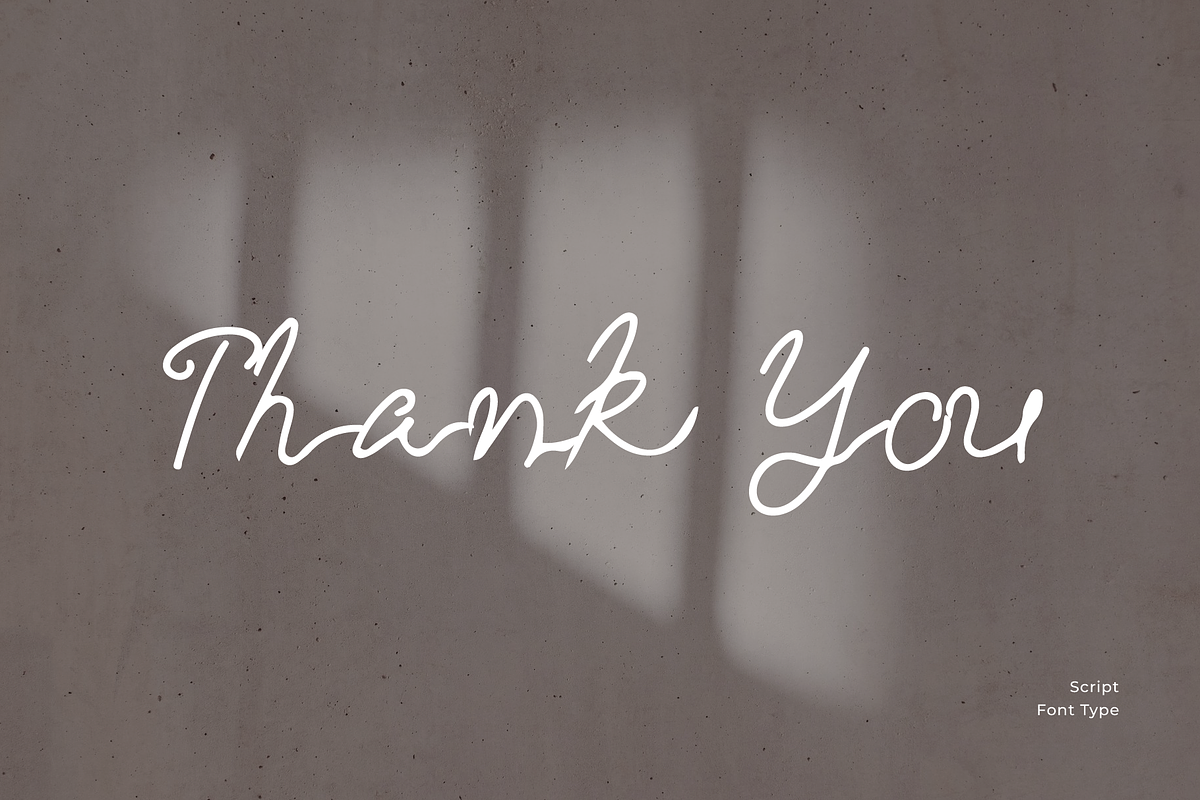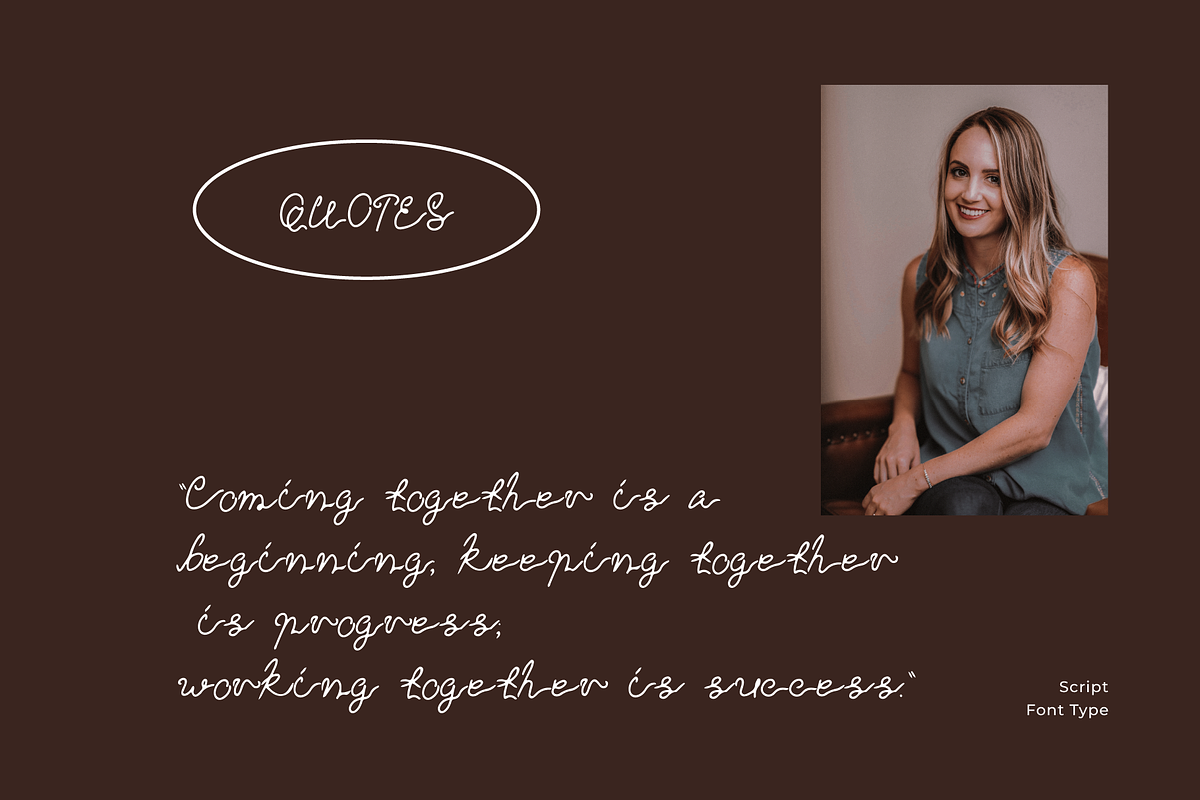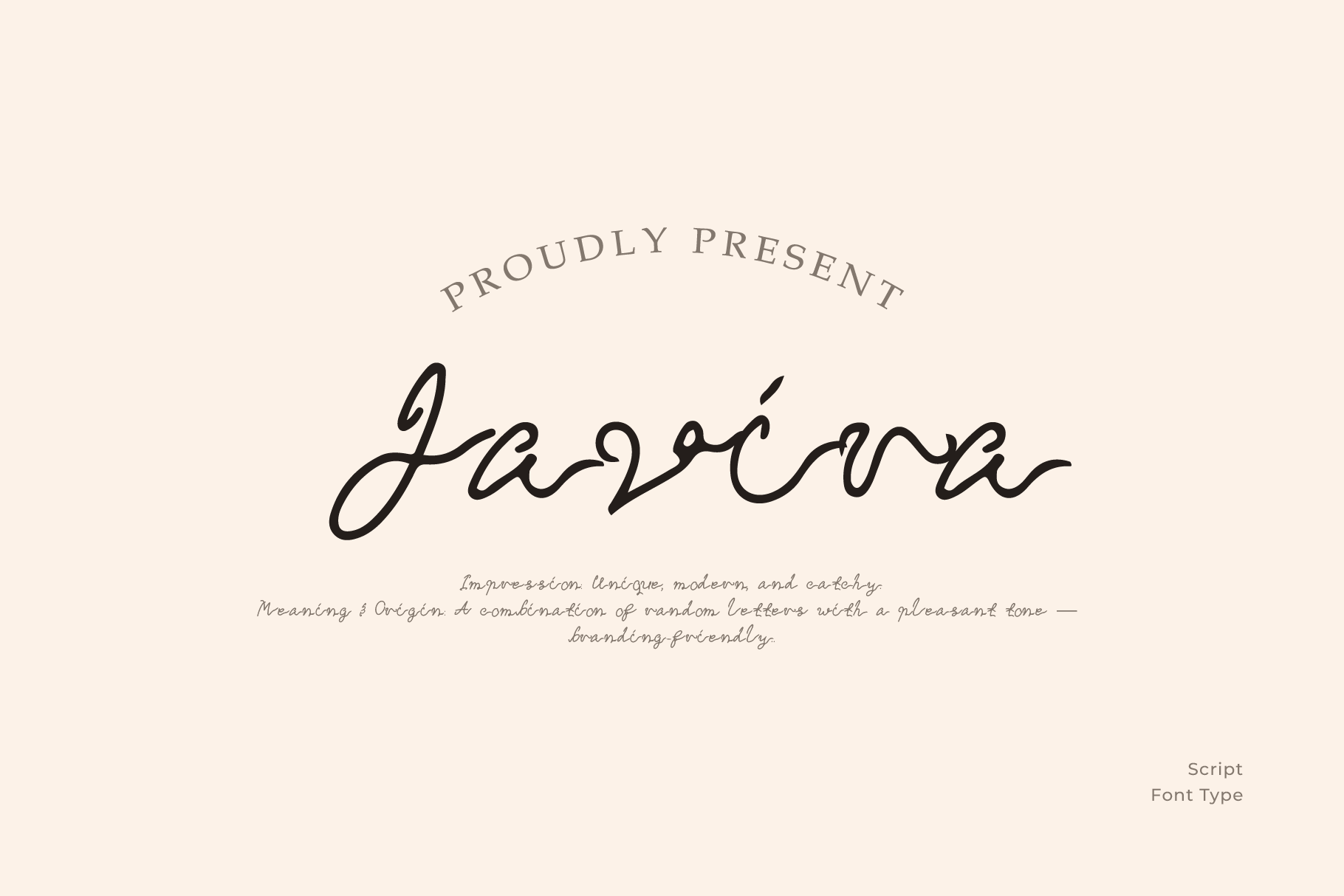
Javira Handwritten Script Font
Javira is a new addition to the world of typography. This font is casual, friendly, and perfect for any kind of creative endeavor you may be using.
Contains all capital letters, numbers, and basic punctuation.